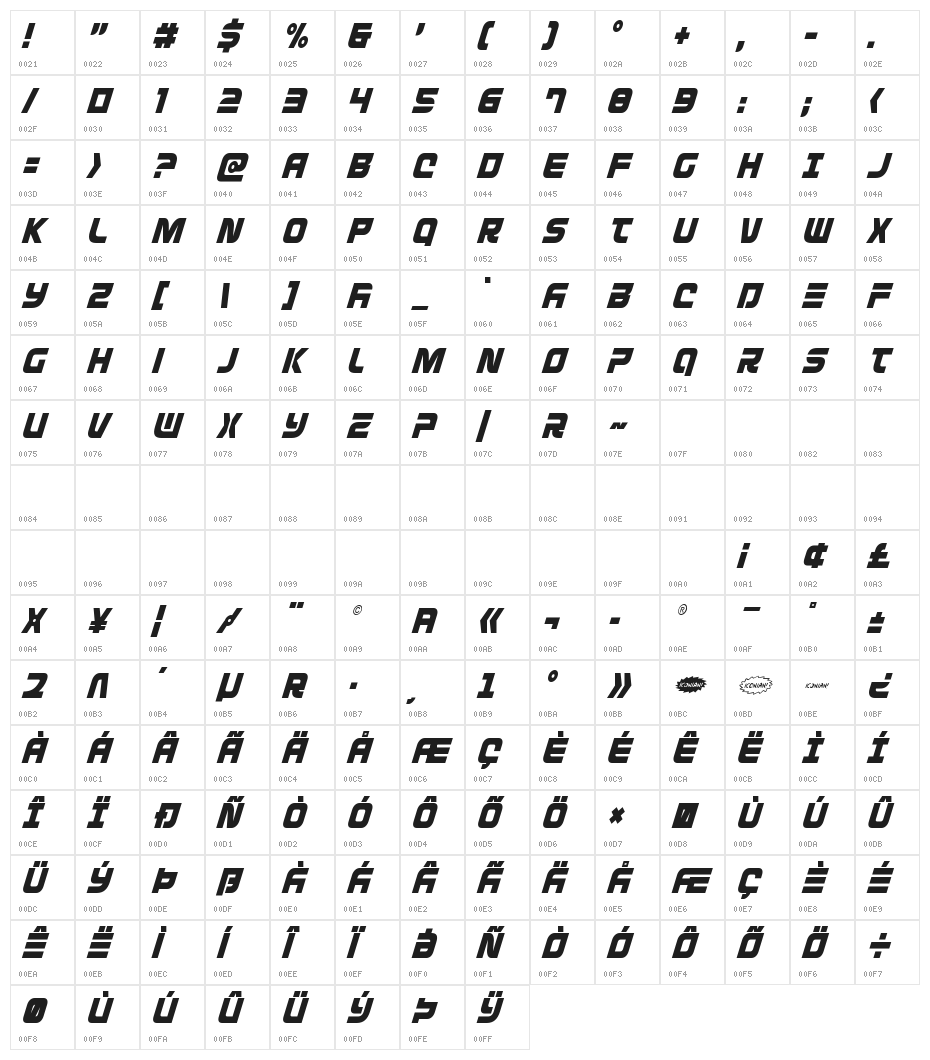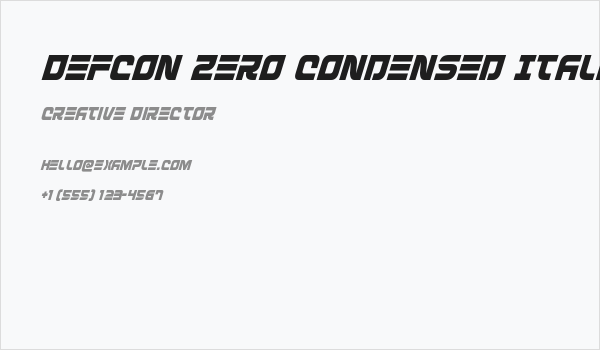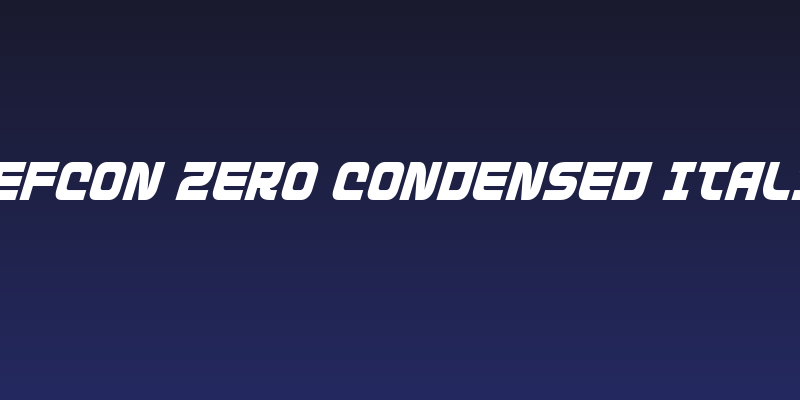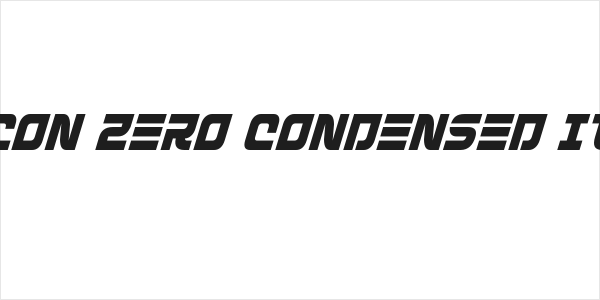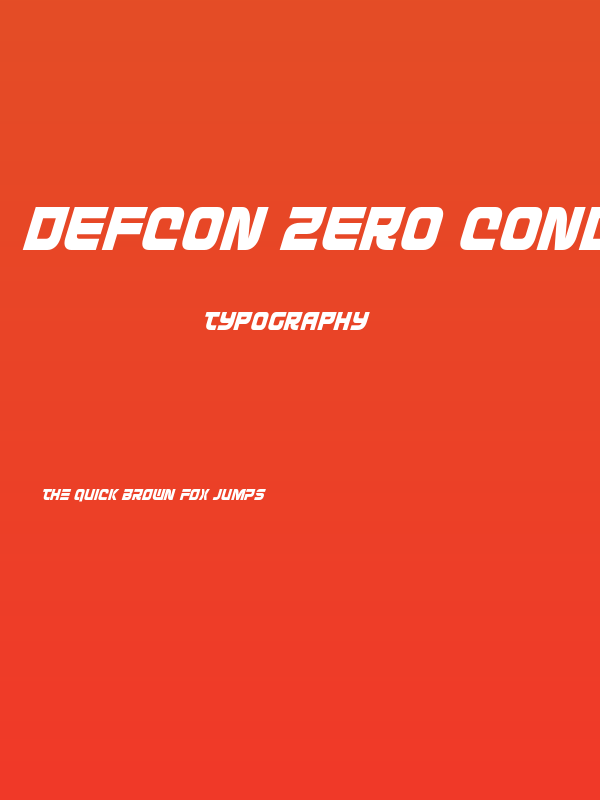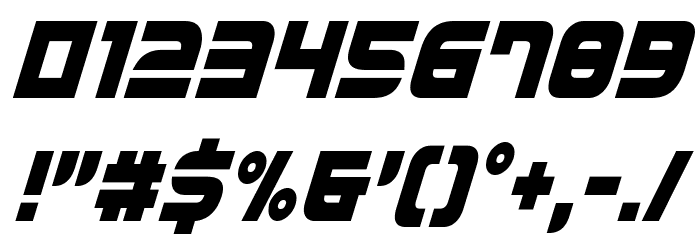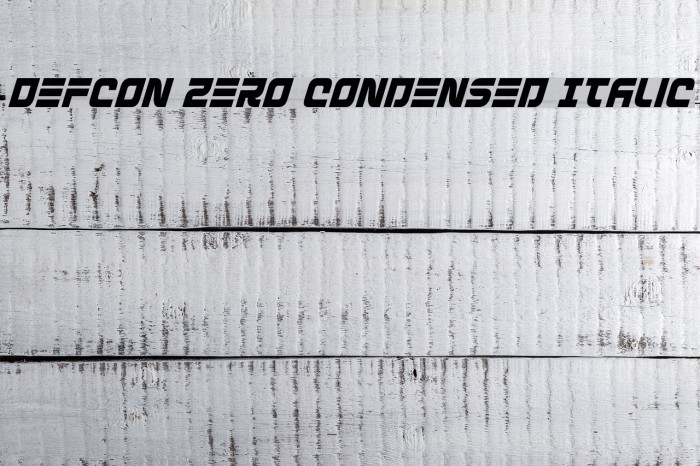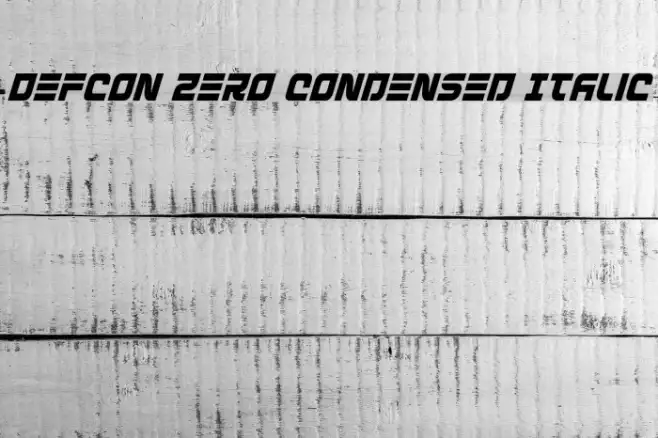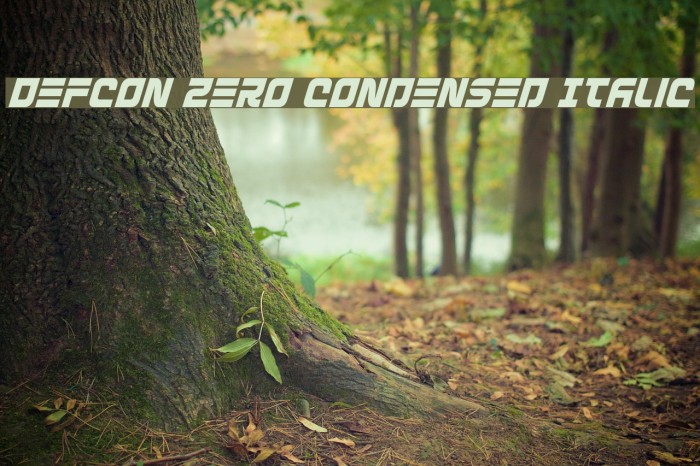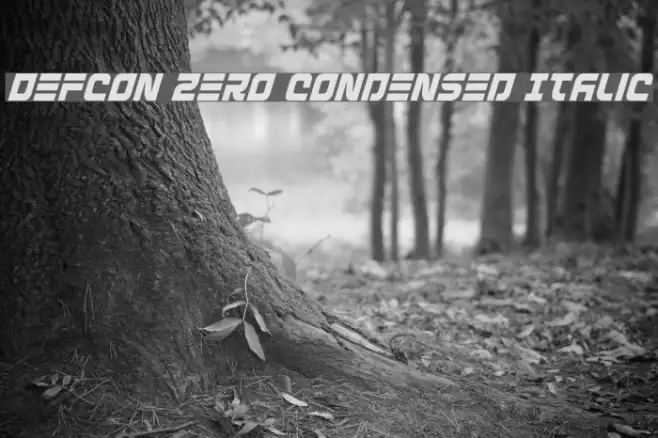
Defcon Zero Condensed Italic Font
Defcon Zero Condensed Italic Description
This font features a bold, italicized style with a condensed width, giving it a dynamic and futuristic appearance. The characters are sharply angled, with a consistent slant that enhances its modern aesthetic. The uppercase and lowercase letters maintain a uniform design, with distinct geometric shapes and clean lines. The numerals and special characters follow the same stylistic cues, ensuring a cohesive look across all glyphs. The overall design is sleek and impactful, making it suitable for projects that require a strong visual presence.
| Proposed Projects | Ideal for sci-fi themed designs, video game titles, tech branding, and modern posters. |